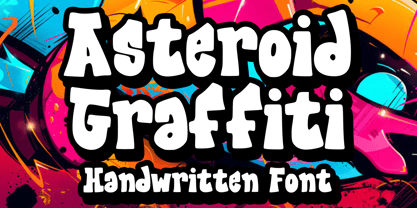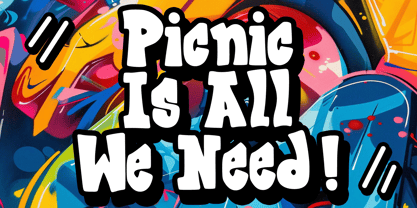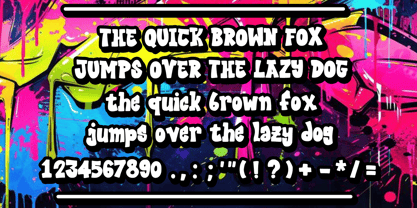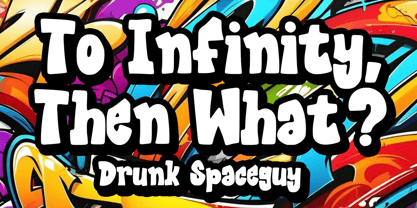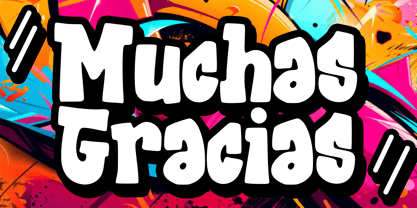
Asteroid Graffiti
by Mvmet
The Asteroid Graffiti Font Family was designed by Gabriel Valentinus and published by Mvmet. Asteroid Graffiti contains 1 styles.
Introducing Asteroid Graffiti, a daring and dynamic display font inspired by the rebellious street style of graffiti. This versatile font seamlessly infuses its wild charisma into various applications, from clothing designs and book covers to street art projects and greeting cards. Asteroid Graffiti is also an ideal choice for stickers, banners, and posters that demand a bold and playful twist. Let Asteroid Graffiti be your secret weapon in crafting visually stunning designs that radiate fun and cheerful energy! With its unique style and expressive character, this font is perfect for branding, web design, and editorial projects, ensuring your message stands out with flair.
Designers: Gabriel Valentinus
Publisher: Mvmet
Foundry: Mvmet
Design Owner: Mvmet